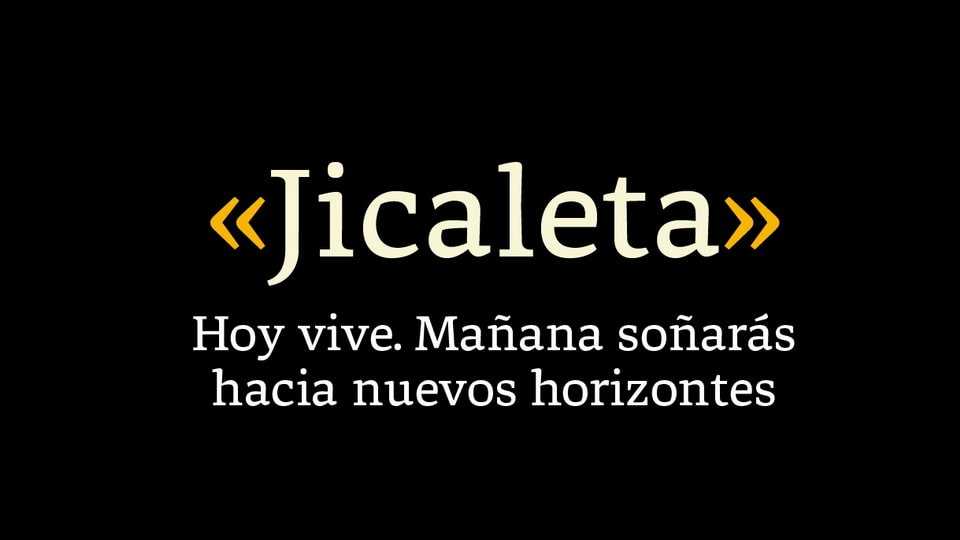
Download Jicaleta font, a serif typeface designed for long texts and work in digital environment. Jicaleta’s characters have horizontal strokes and a rebellious calligraphic touch.
Designer: Torneo Tipográfico